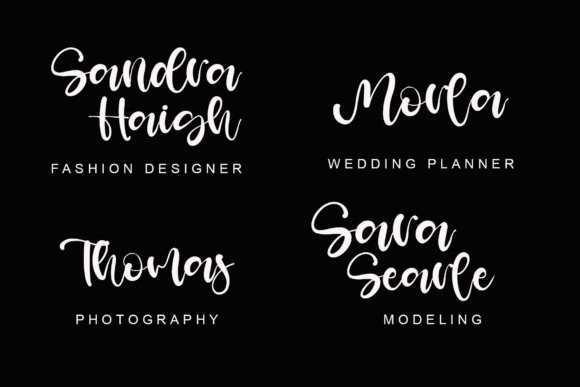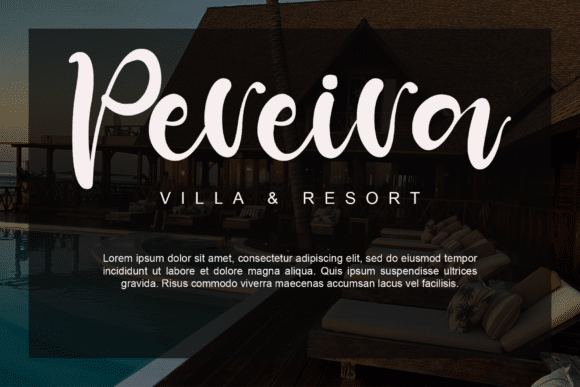
Spirit Day Font
Spirit Day is a modern and playful handwritten script font. It is perfect for any branding project such as logos, t-shirt printing, creative products, and more. It will look extraordinary in a variety of contexts.